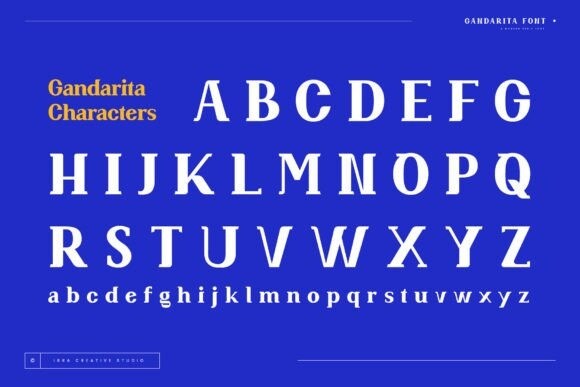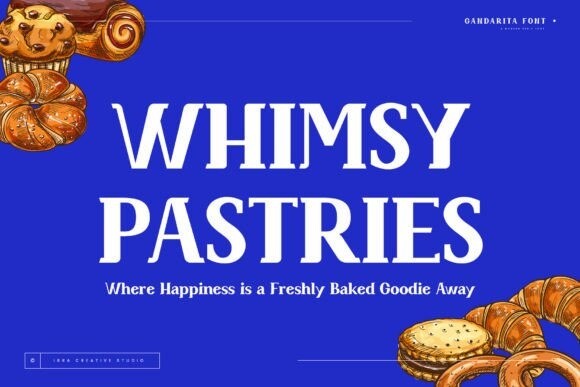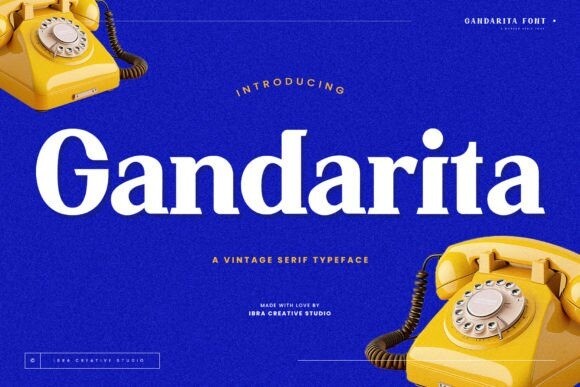
Gandarita Font
Gandarita Font, a vintage serif typeface, exudes timeless elegance and sophistication. With its carefully crafted letterforms, inspired by classic typography, Gandarita seamlessly blends tradition with a contemporary flair. The typeface boasts distinctive serifs that evoke a sense of refinement and nostalgia, making it an ideal choice for projects that require a touch of vintage charm. Gandarita imparts a sense of enduring style, making it a standout choice for those seeking a classic serif typeface with a hint of character and sophistication.